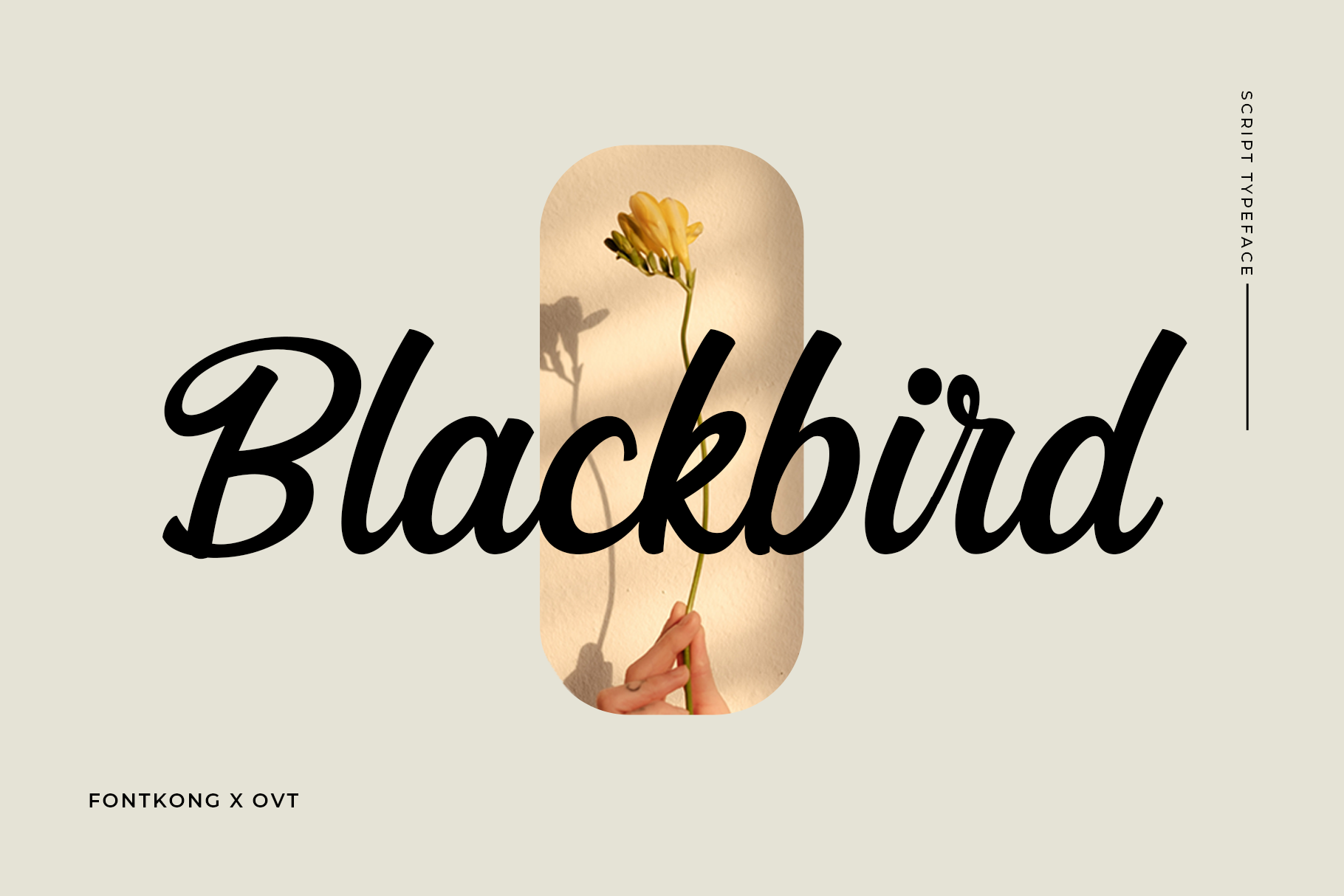
Blackbird - Script Typeface
Introducing "Blackbird," a script typeface that combines elegance and fluidity to enhance your design projects. Perfect for graphic designers, typographers, and creatives seeking a touch of sophistication and grace, Blackbird offers a refined and versatile aesthetic ideal for various applications.
Ideal for elegant branding, stylish invitations, sophisticated packaging, captivating logos, and graceful advertising, Blackbird’s flowing and well-balanced characters convey a sense of beauty and refinement. Each letter is meticulously crafted to ensure exceptional readability while maintaining a unique and charming appearance, making your designs both alluring and memorable.
The "Blackbird" font includes a complete set of uppercase and lowercase letters, numbers, punctuation marks, and special characters. This versatile set allows for seamless integration into various design applications, from luxurious branding to elegant editorial layouts.
Elevate your designs with Blackbird, the script typeface that brings elegance and fluidity to every stroke.